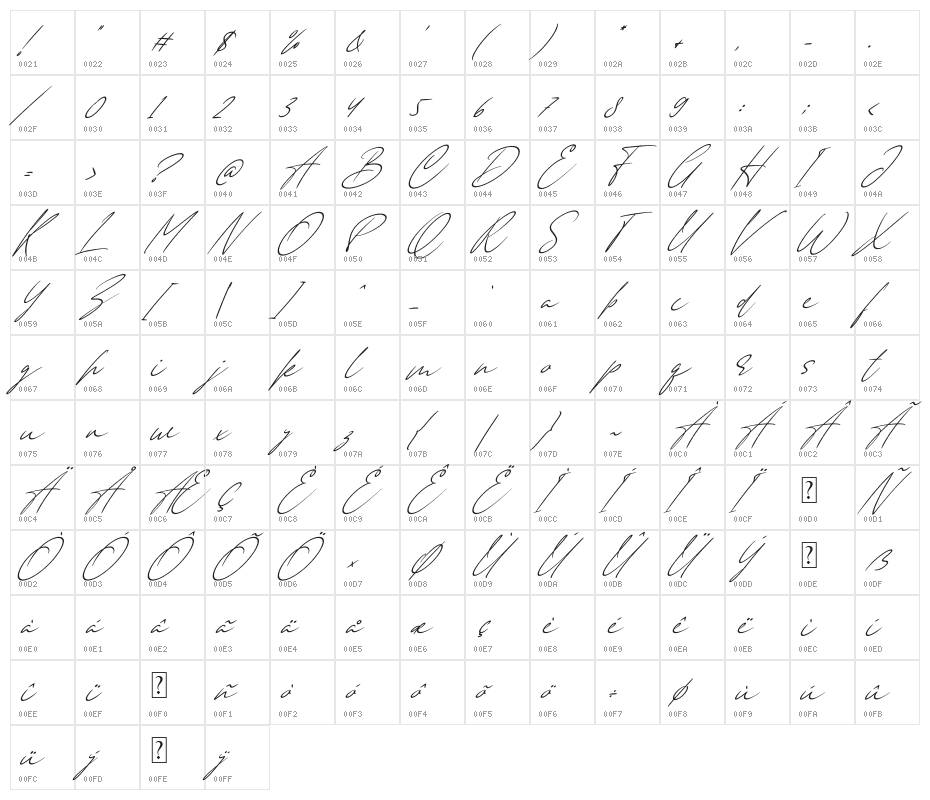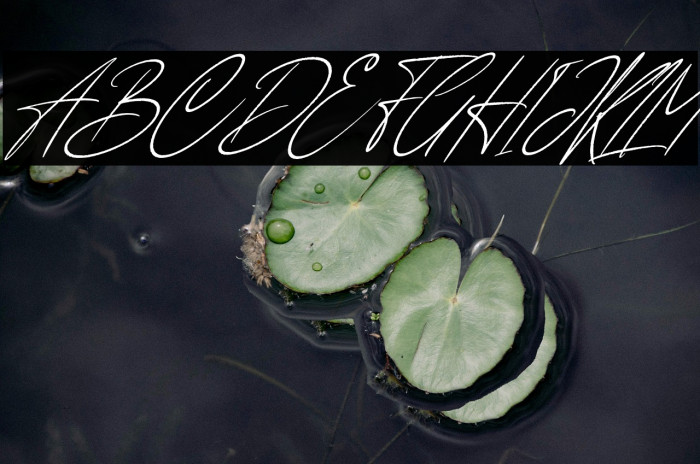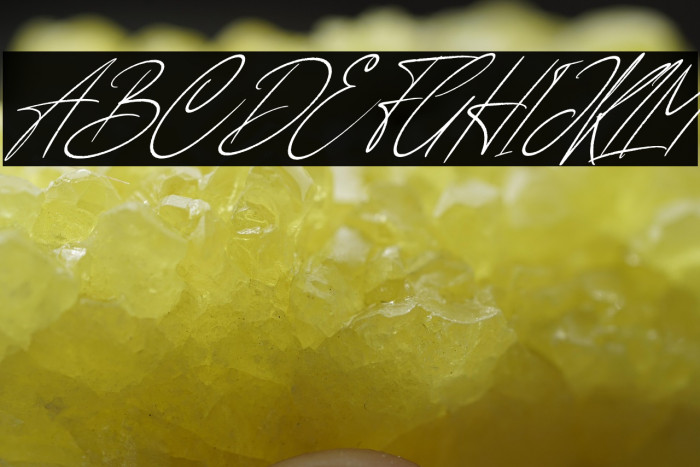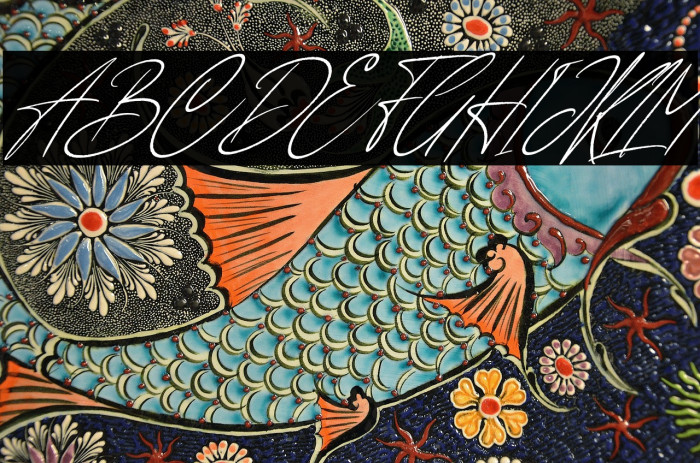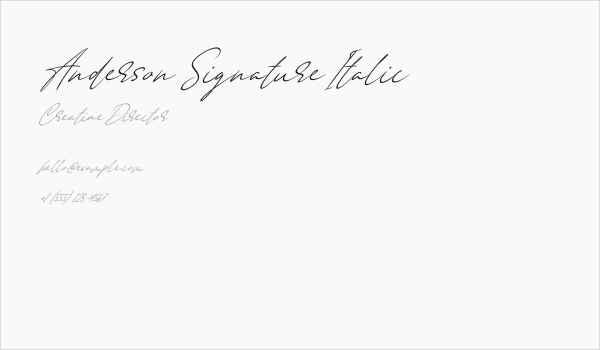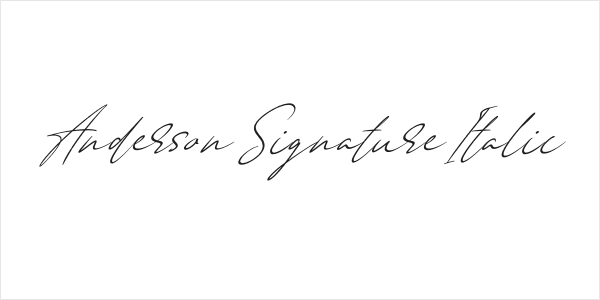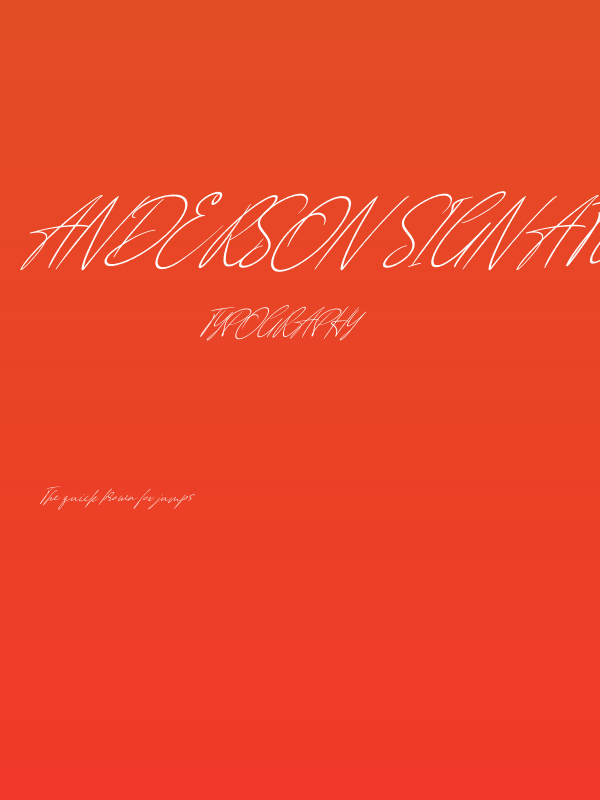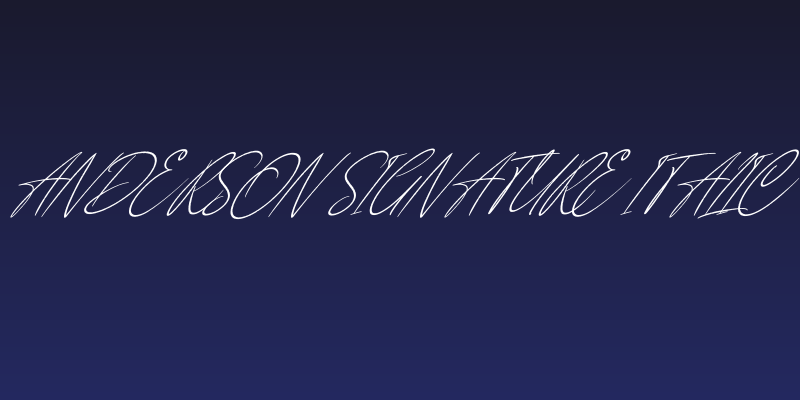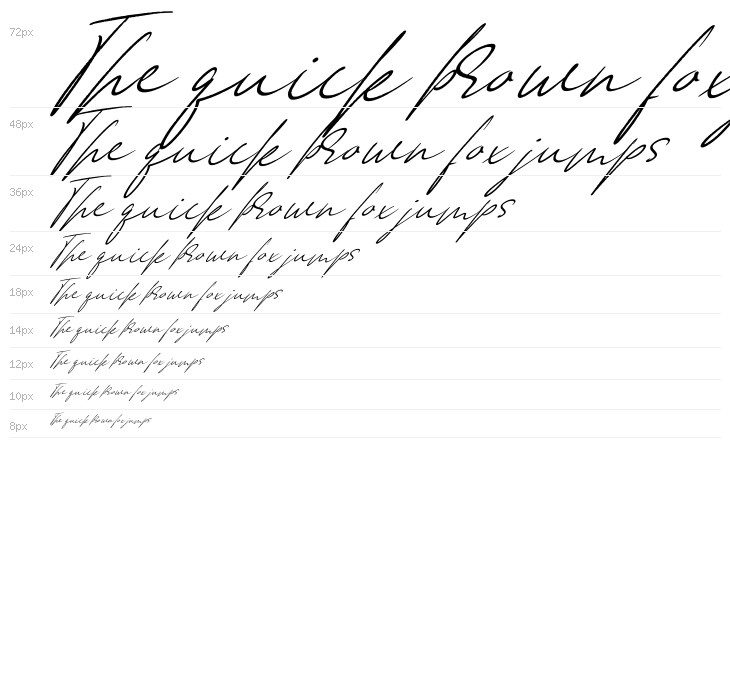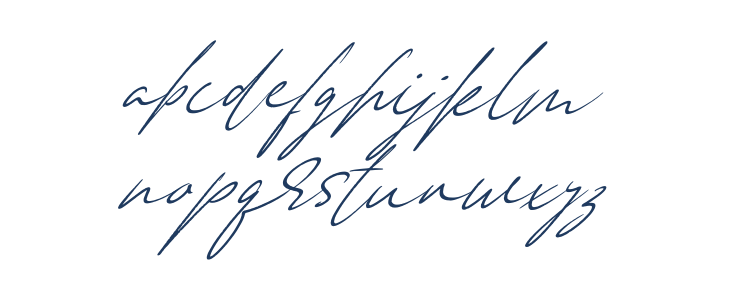
Anderson Signature Italic Font
Anderson Signature Italic Description
This font exudes elegance and sophistication with its flowing, cursive style. The letters are intricately connected, creating a seamless and fluid appearance. The strokes are thin and delicate, giving it a refined and graceful look. The italic slant adds a dynamic and expressive quality, making it ideal for conveying a sense of personal touch and creativity. The overall design is reminiscent of a handwritten signature, perfect for adding a personal and artistic flair to any project. The characters are well-proportioned, with a consistent slant that enhances readability while maintaining an artistic edge.